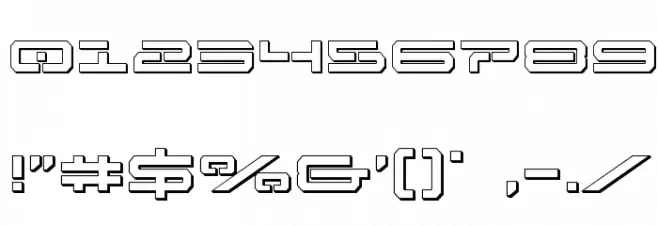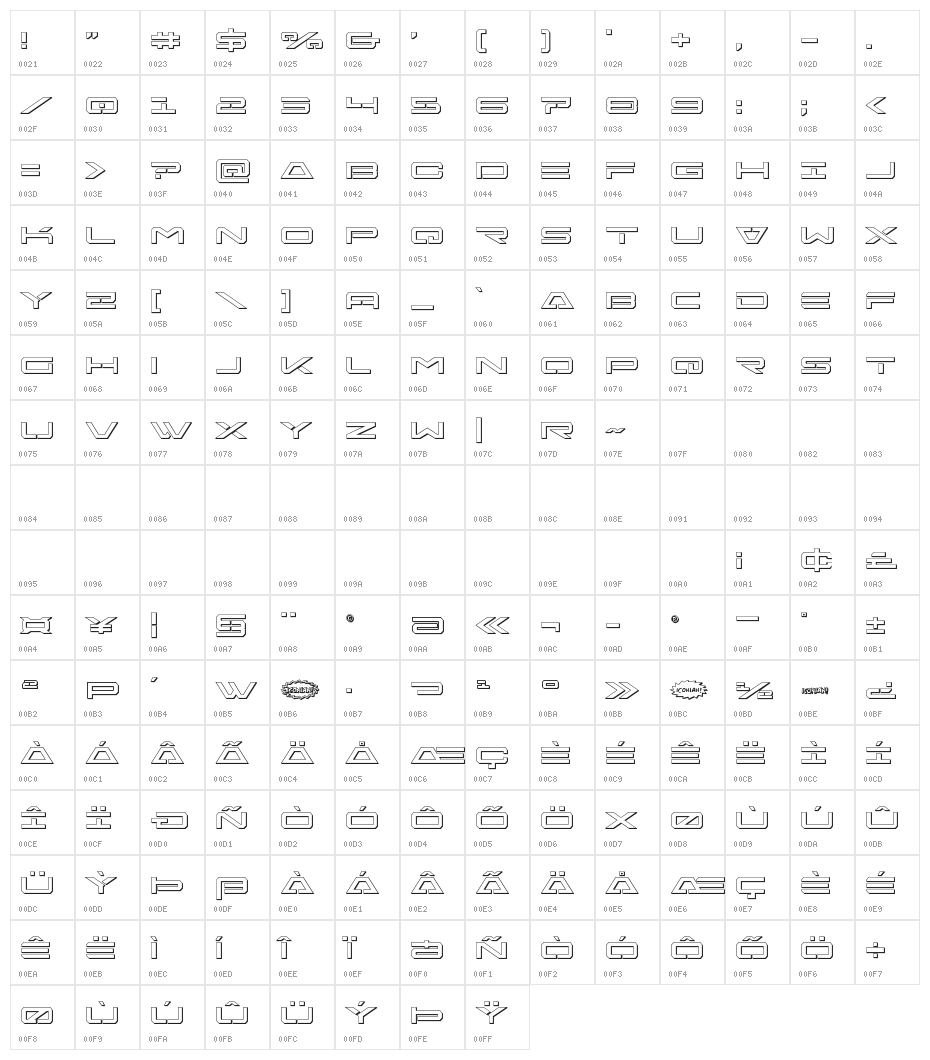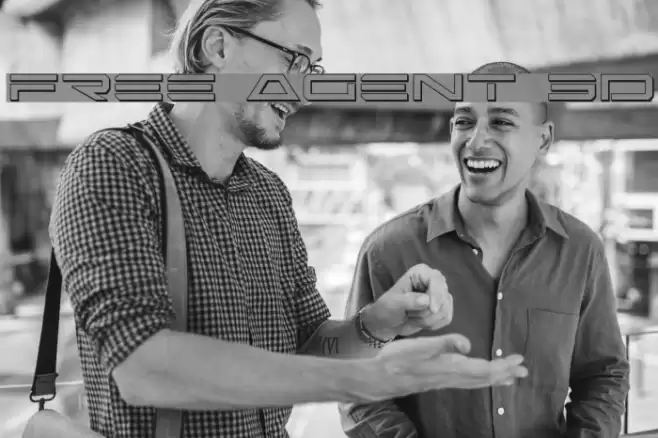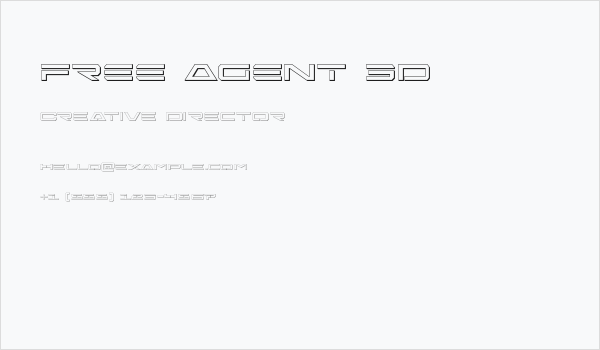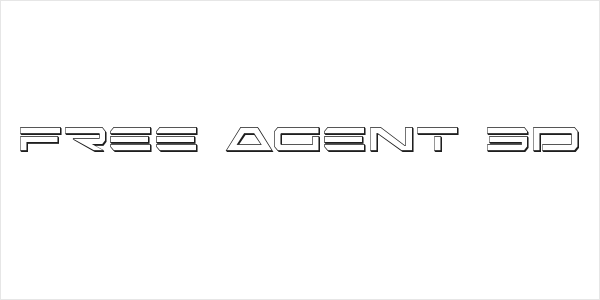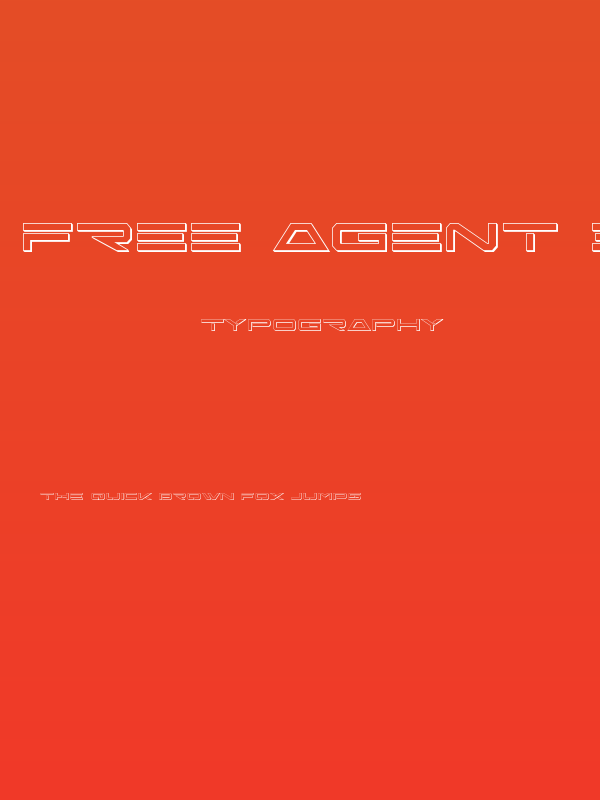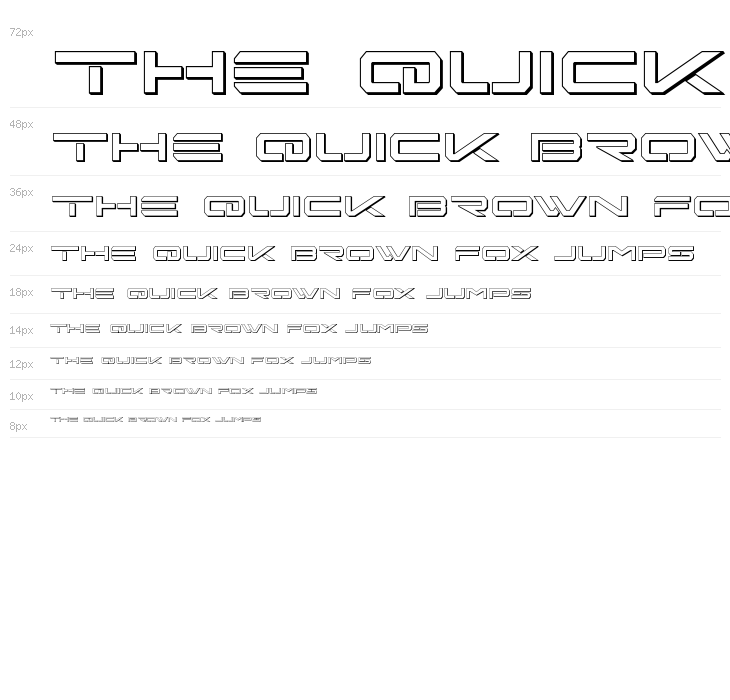
Free Agent 3D Font
Free Agent 3D Description
This font features a futuristic and geometric design with a 3D effect, characterized by its hollow, outlined letters. The uppercase letters are bold and angular, giving a sense of depth and dimension. The characters are constructed with clean lines and sharp edges, creating a modern and tech-inspired appearance. The numbers and special characters maintain the same stylistic approach, ensuring consistency throughout the typeface. This font is ideal for projects that require a contemporary and dynamic look, such as technology branding, sci-fi themes, or digital interfaces.
| Proposed Projects | Ideal for technology branding, sci-fi themes, digital interfaces, and modern advertising. |